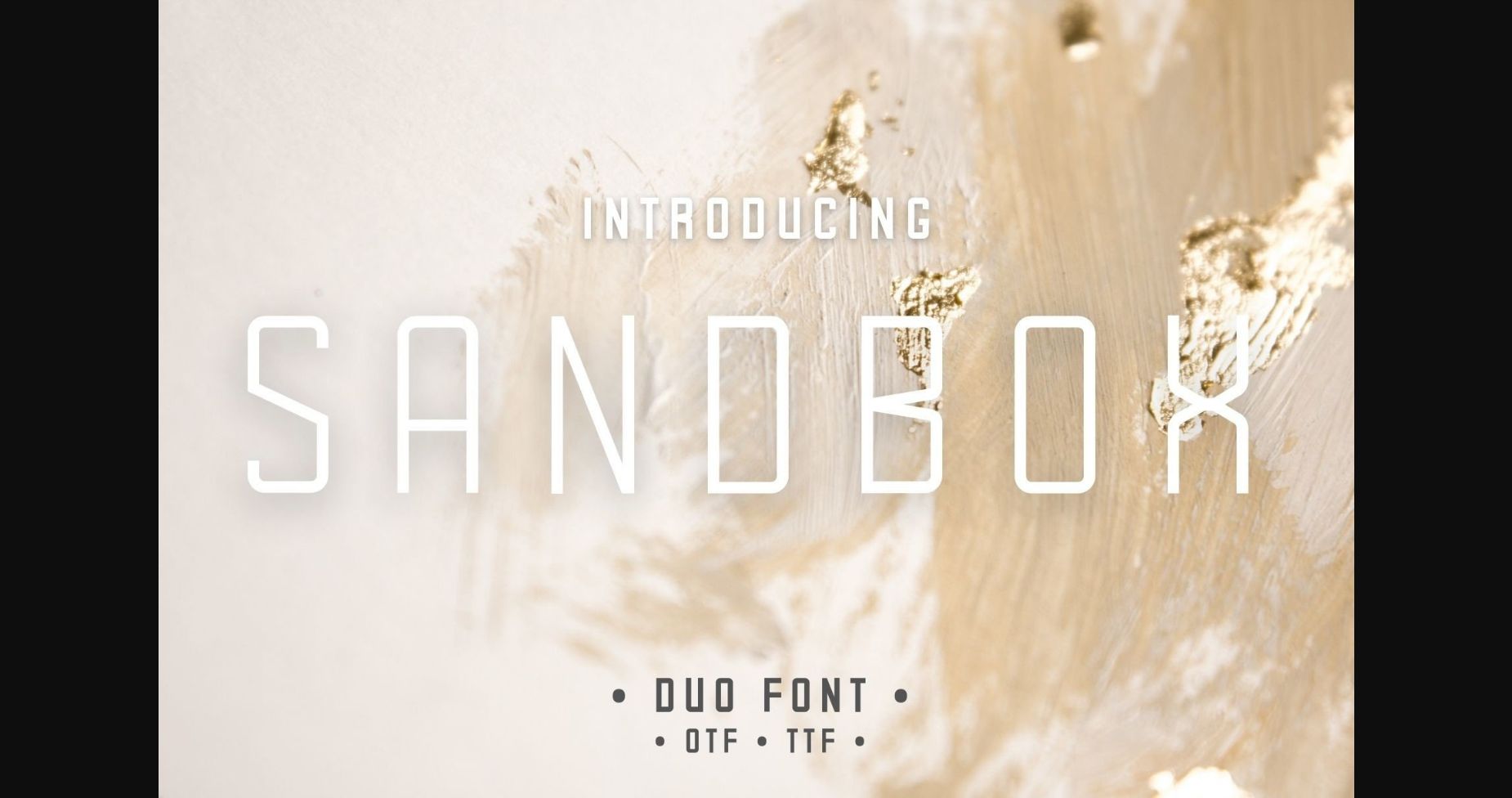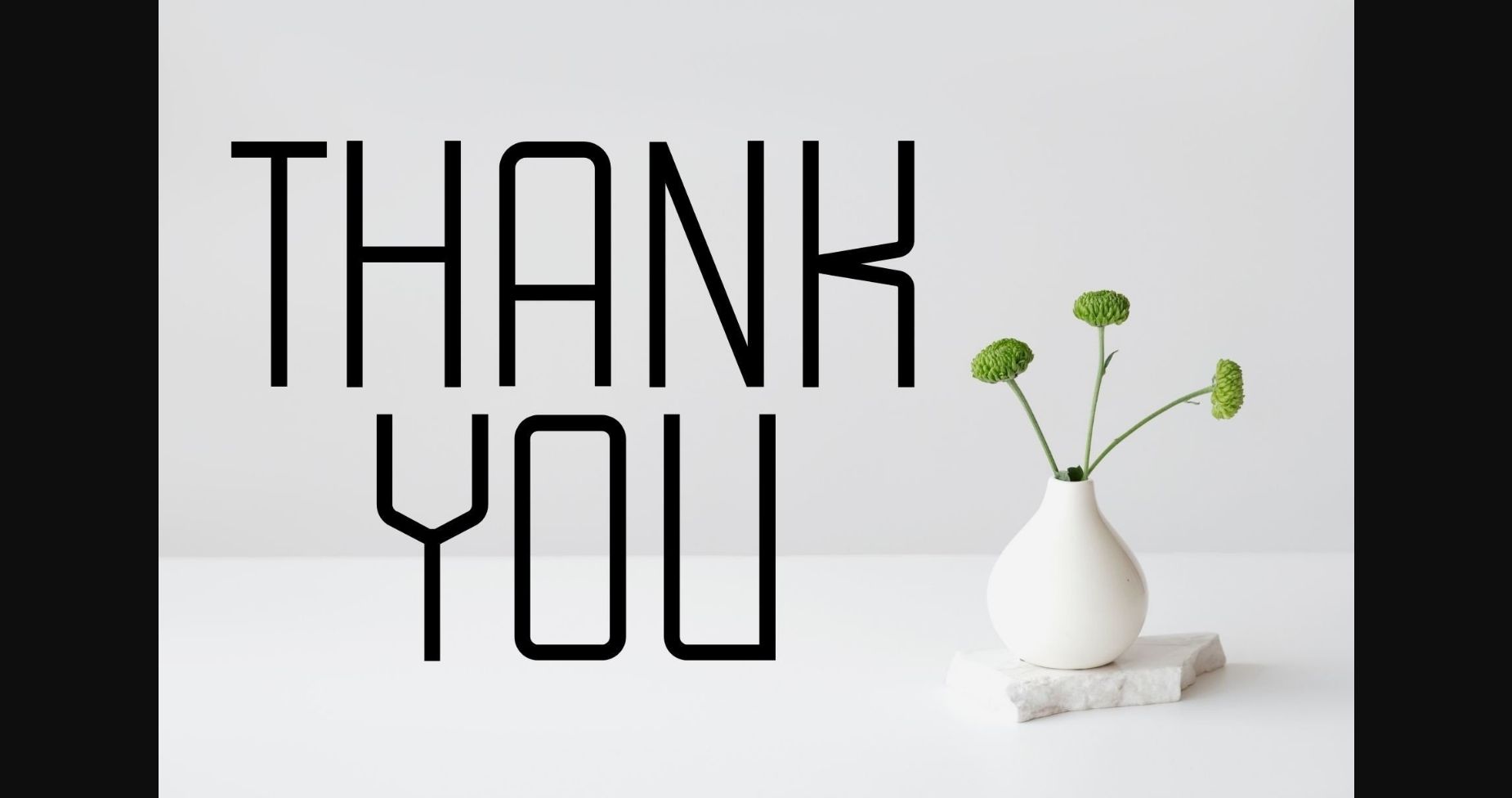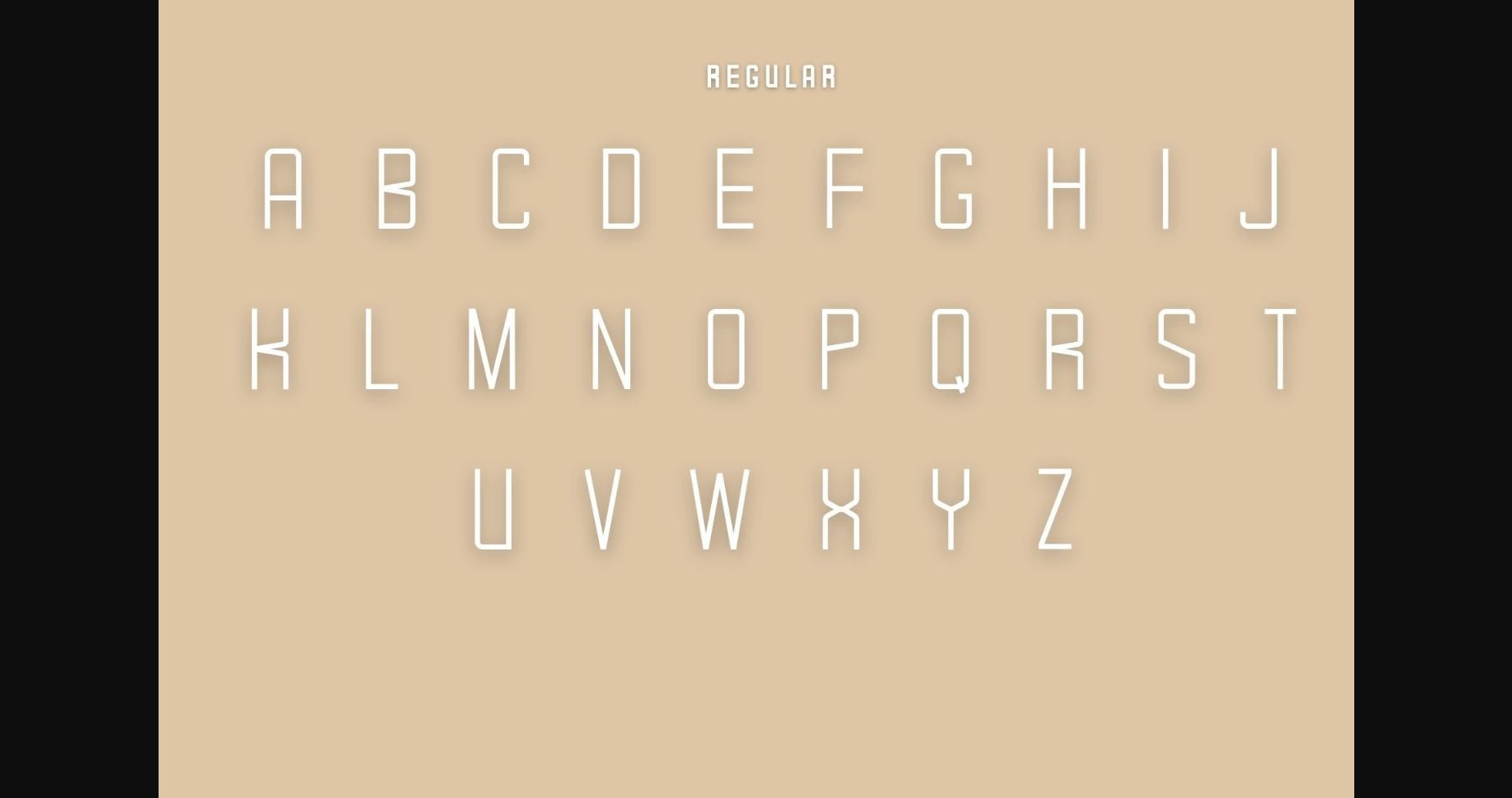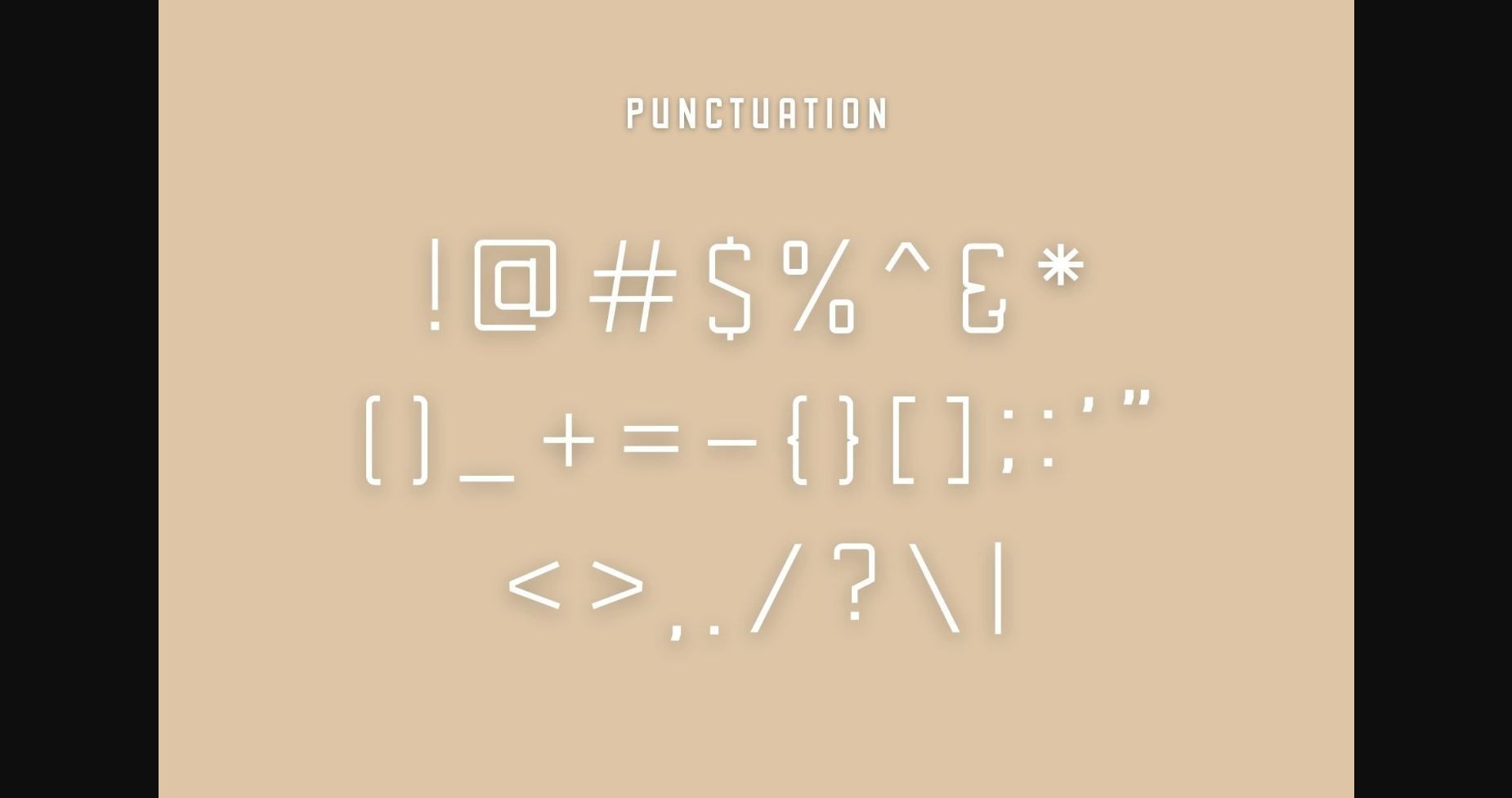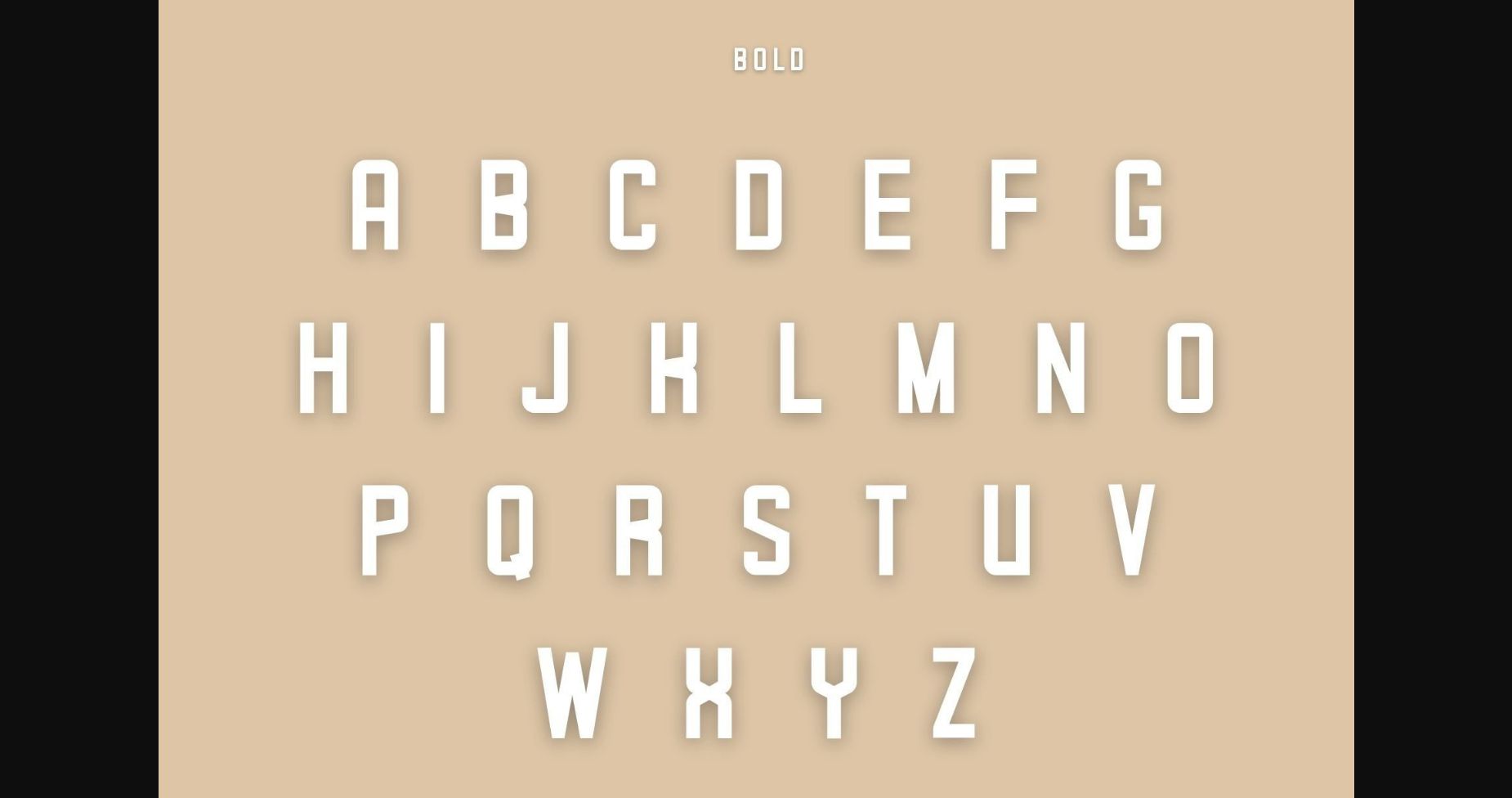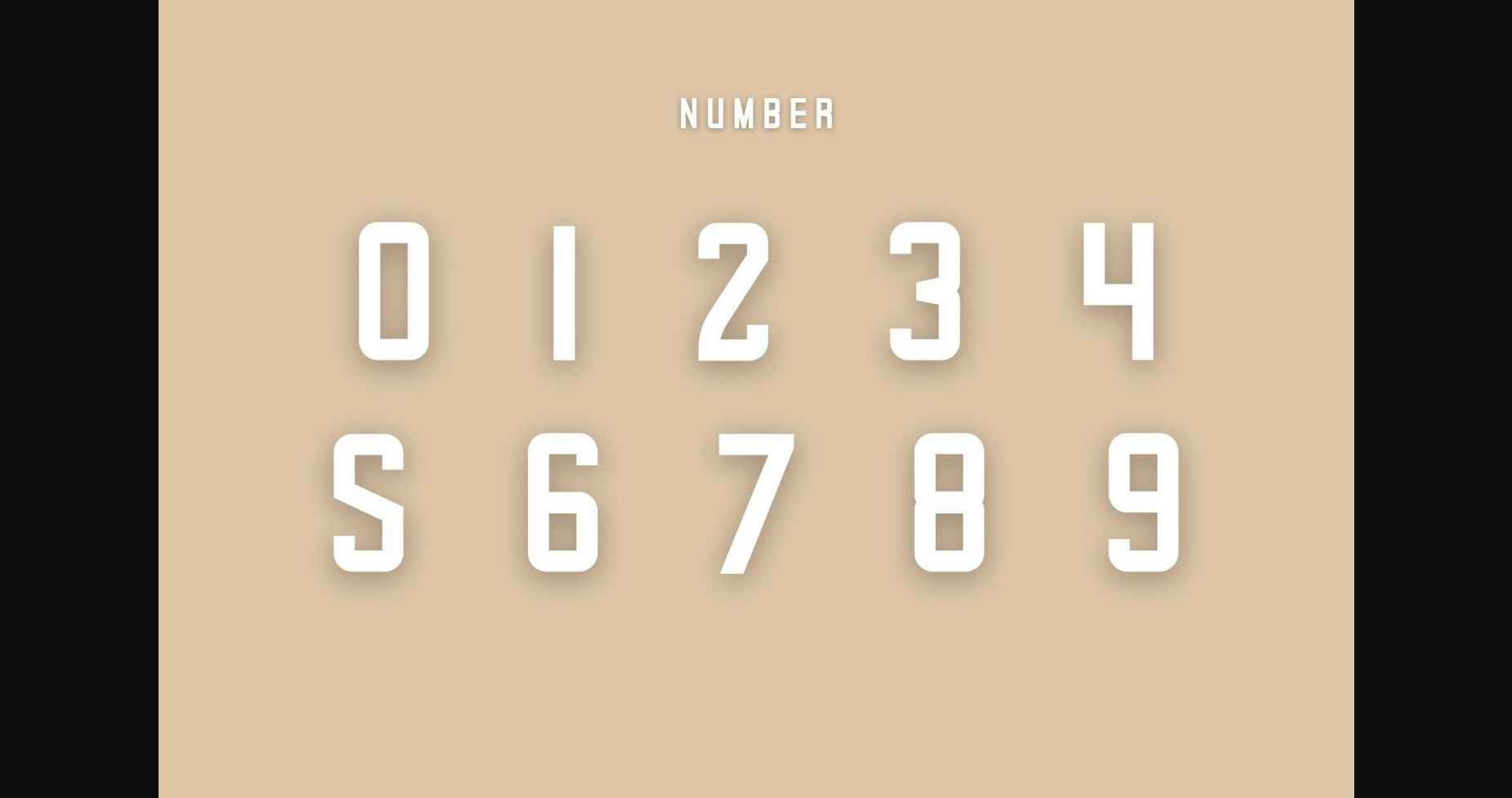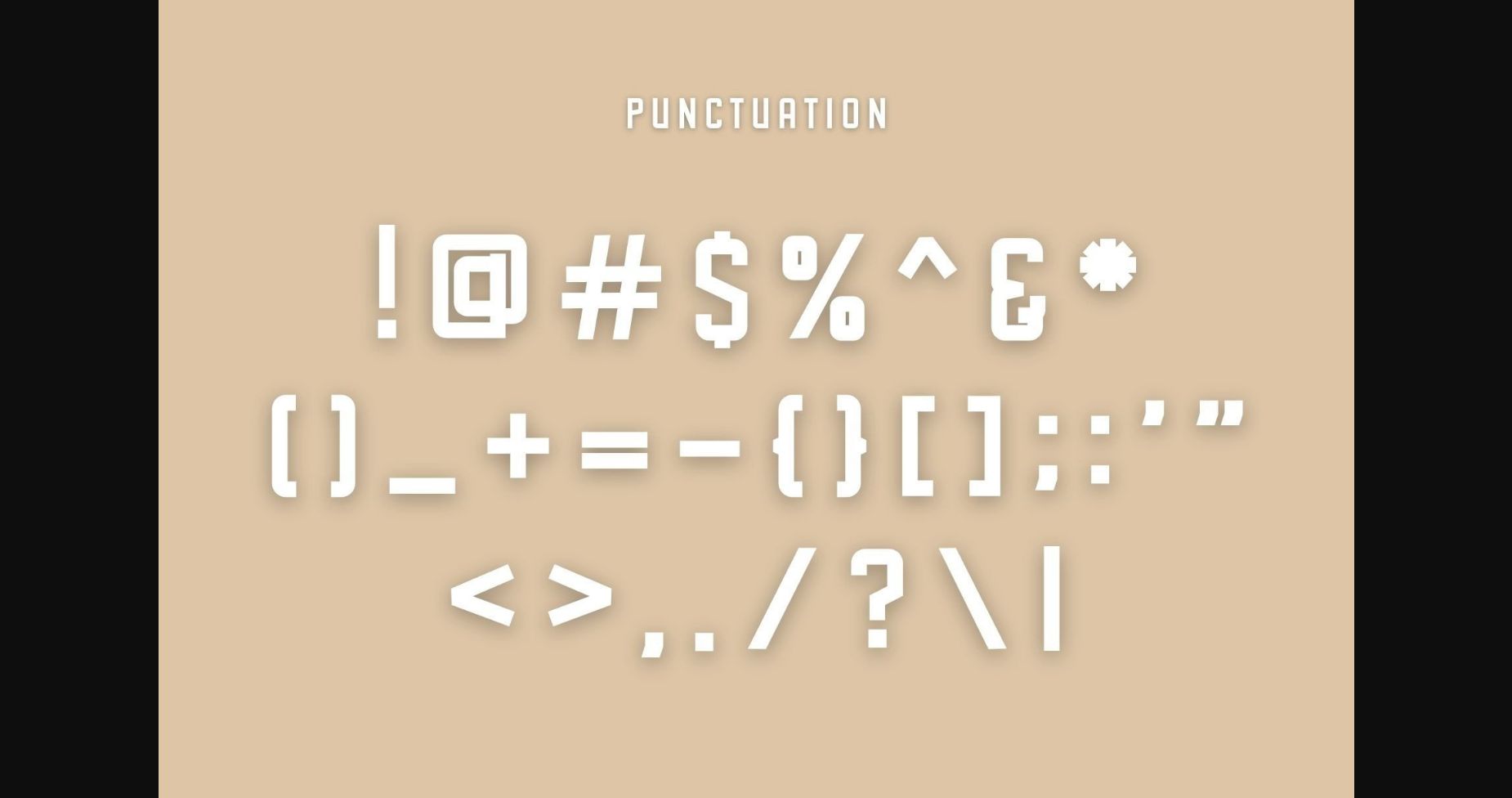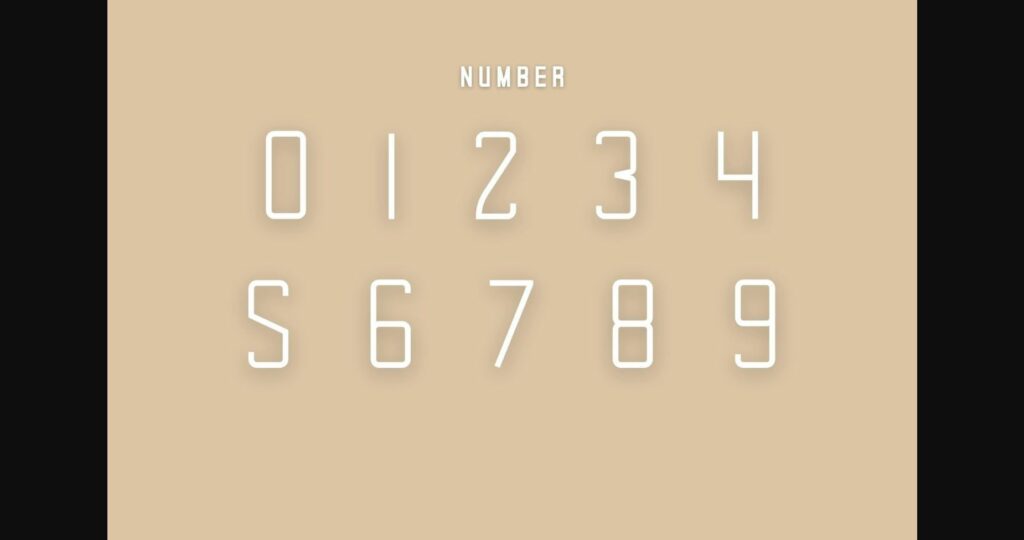
Sandbox Font
About Sandbox Font
Sandbox is a stunning sans serif font suitable for every project you’re working on. Authentic and playful, it is perfect for blog posts, logos, branding, ads, invitations, greeting cards, planners, photo albums, decorations, and many more. Add it to any of your designs, and enjoy the results!